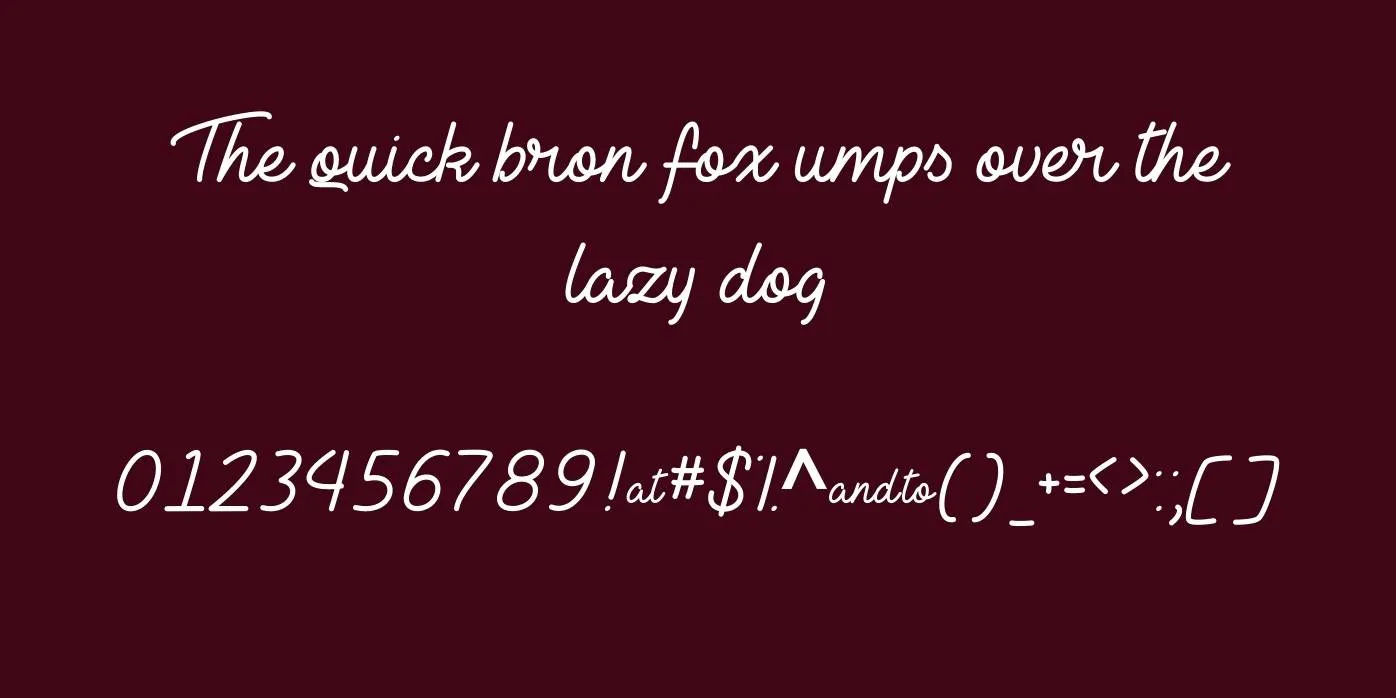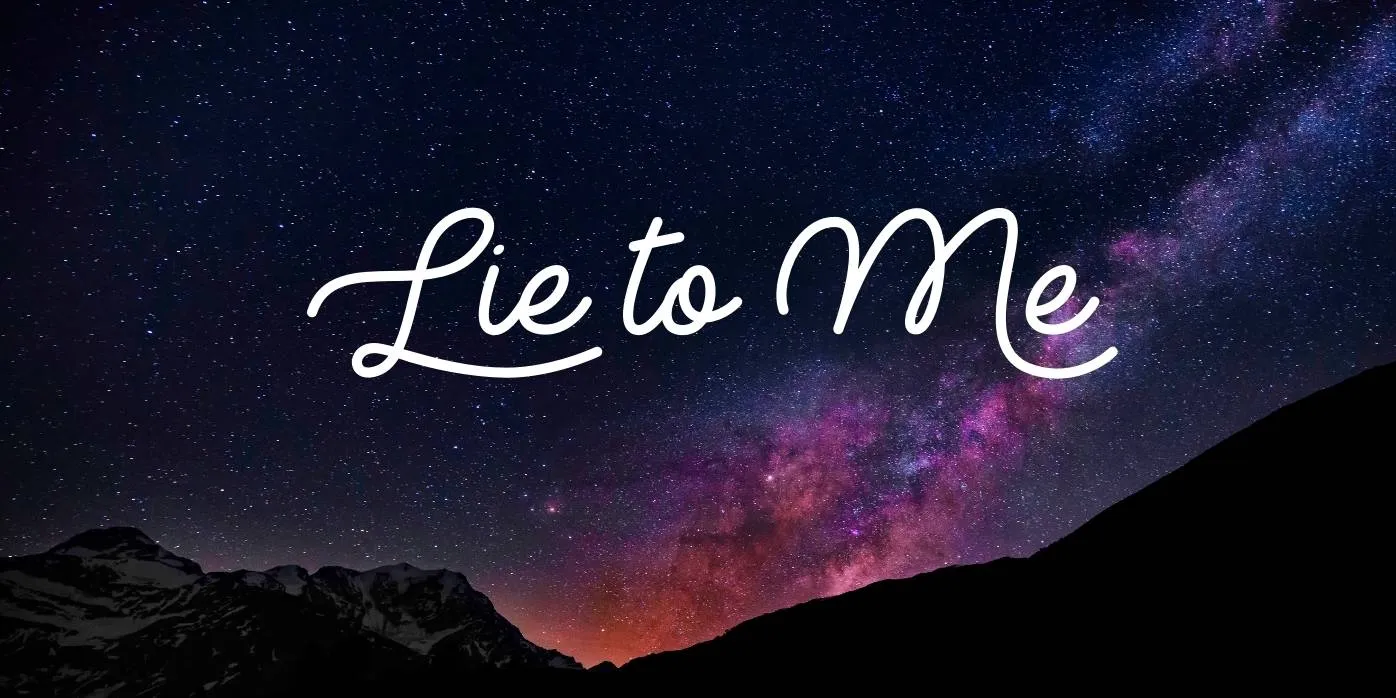
Lie to Me Font
Misti’s Fonts designed Lie to Me font. The typeface is a Script texture. Its characters are stylish not simple and classic and that is the reason of using this texture in many design projects. The texture has many unique properties.
The typeface has a very unique glyphs that easily grab attention and make readable. This typeface has only one style. The trully font works well with this font to create a design with a pretty look. An online generator tool for this font is awesome.